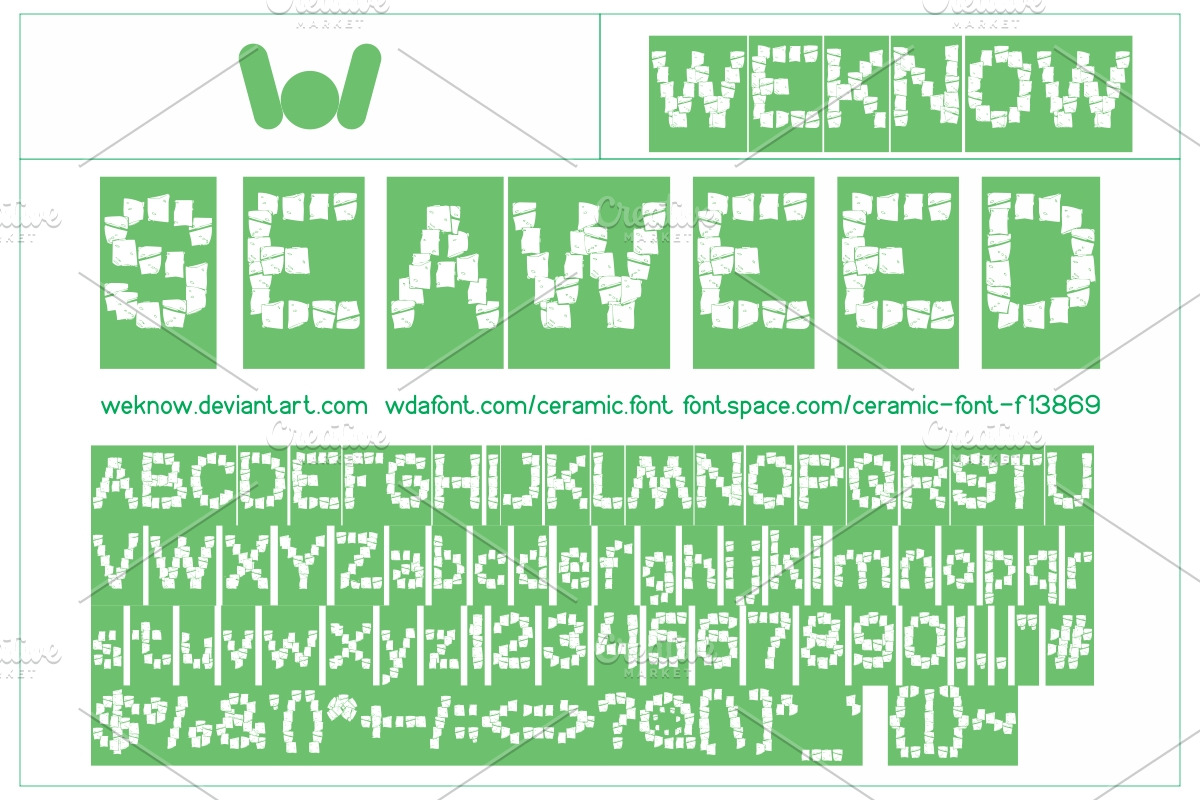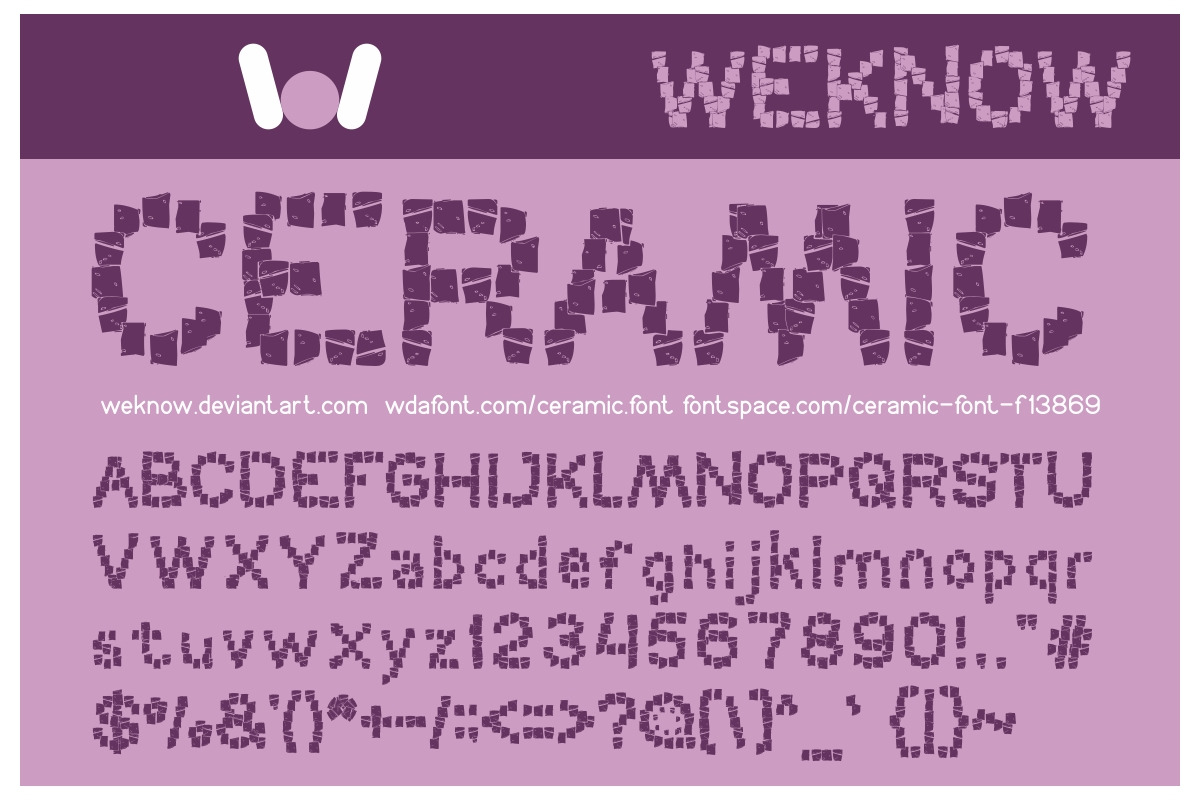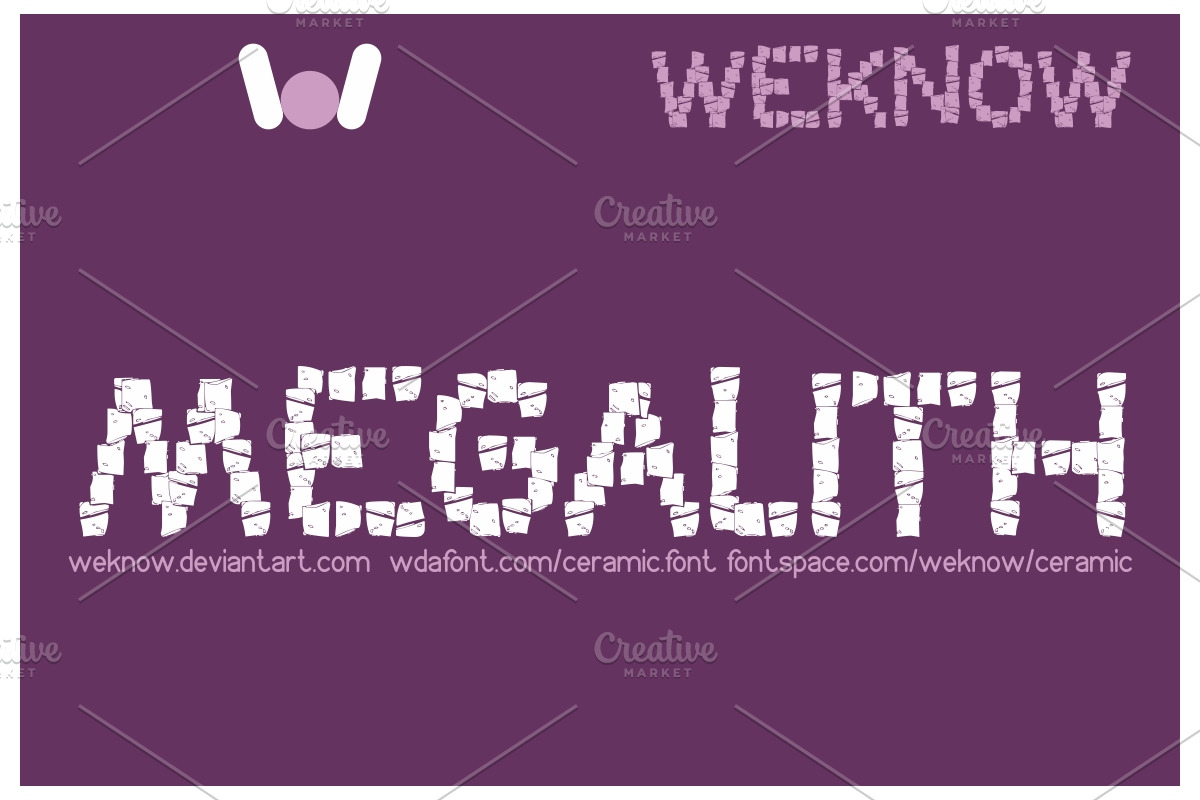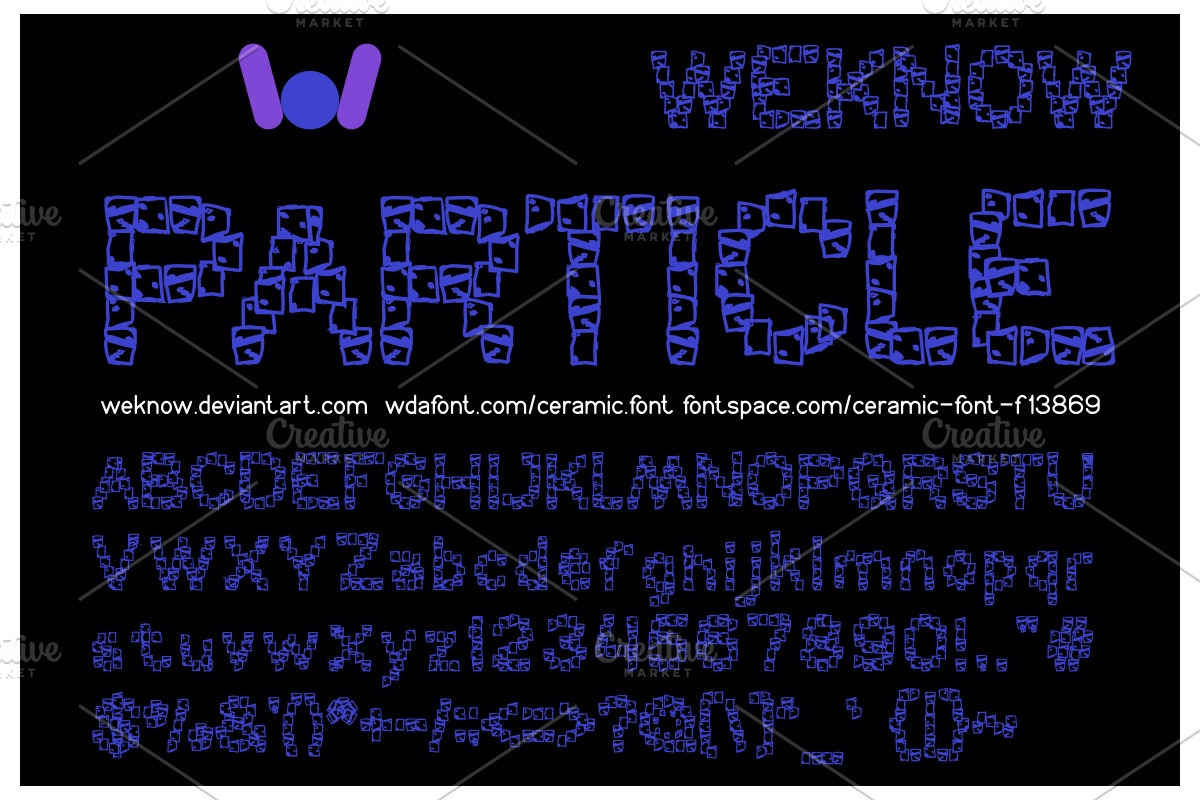
ceramic font
available style: CERAMIC-Hollow, CERAMIC-Inverse, CERAMIC-Italic
ceramic font by weknow fits naturally into Branding, posters, packaging, typography.